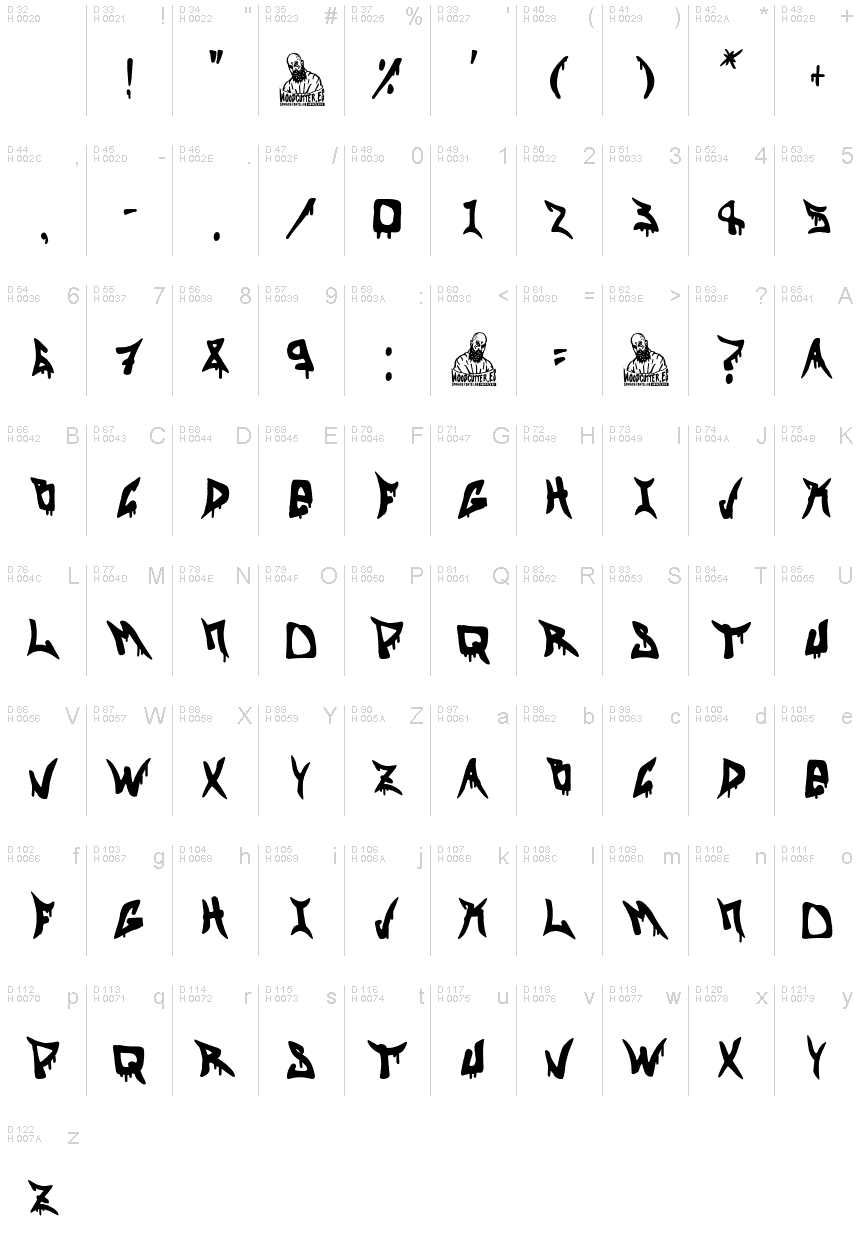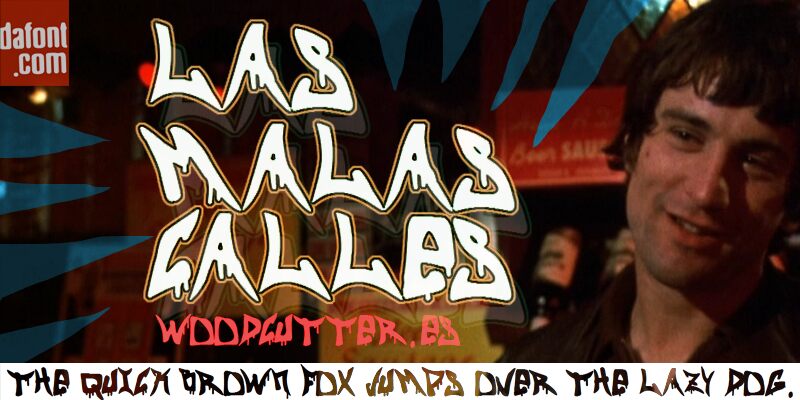
Las Malas Calles
Las Malas Calles, designed by Woodcutter, is a graffiti-inspired font that captures the raw energy and edginess of street art. With its semi-bold weight and jagged contours, this typeface exudes a rebellious vibe that makes it perfect for projects requiring a dose of urban attitude. The characters boast an unmistakable aesthetic appeal with their dynamic strokes and sharp angles, reflecting the spontaneous nature of graffiti.
This font's style is not just visually striking; it carries the spirit of the streets into any design. Las Malas Calles' versatility makes it suitable for an array of creative undertakings—from eye-catching posters and flyers to compelling apparel designs and album covers. Its distinct appearance ensures that any message stands out with an authentic touch of street culture sophistication. Embrace the boldness and character of Las Malas Calles to infuse your projects with unparalleled style.
Las Malas Calles.